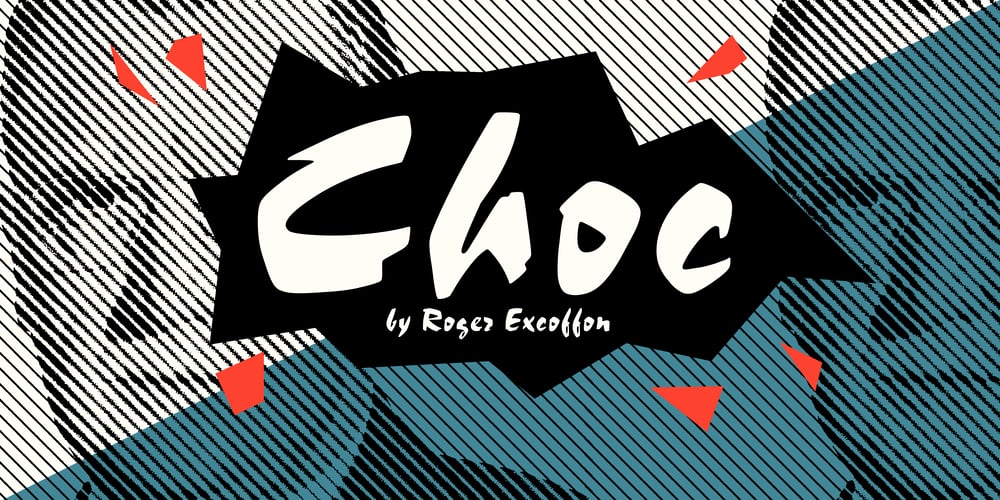
Choc Font Family was designed by Phill Grimshaw, Roger Excoffon and published by ITC. Choc contains 2 styles and family package options. Choc font is the work of French designer Roger Excoffon, based on the traditions of Japanese brush calligraphy, thick yet graceful. Choc light font was designed by Phil Grimshaw, who had to redraw many times in different weights before finding one that worked as a text face and remained true to the original.